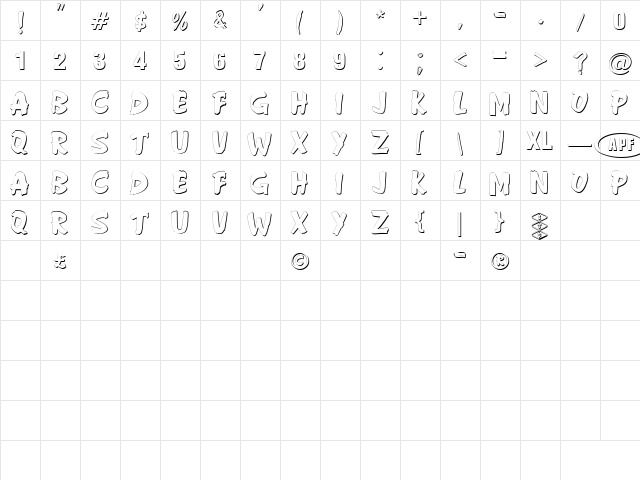
Anderson Fireball XL5 Shadow Regular
Design Context for Anderson Fireball XL5 Shadow Typeface
Anderson Fireball XL5 Shadow brings ornamental detail and strong personality to headlines and identities, where visual impact matters more than quiet functionality.
Font Pairing: Pair with a clean neutral sans-serif for body copy to let Anderson Fireball XL5 Shadow's character lead without overwhelming the composition.
Pro Tip: Treat Anderson Fireball XL5 Shadow as the centrepiece of your typographic hierarchy. One strong heading set in a decorative face can carry an entire layout.